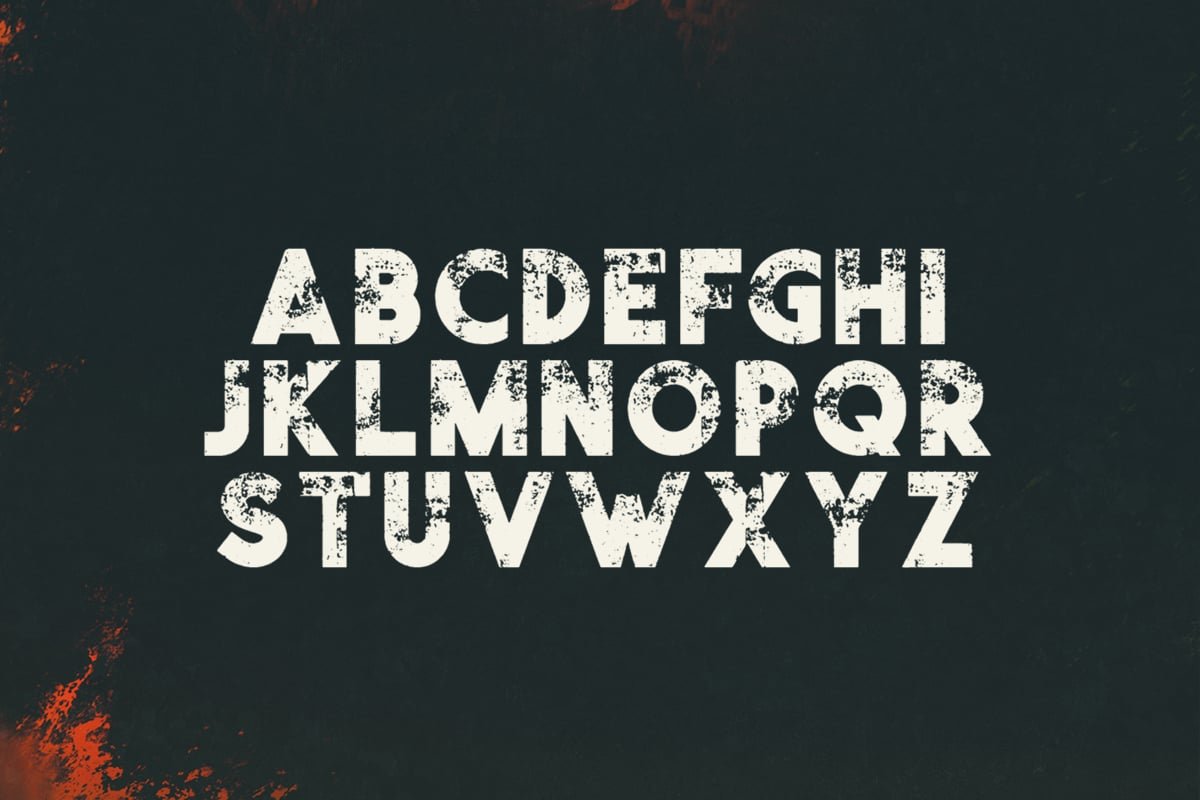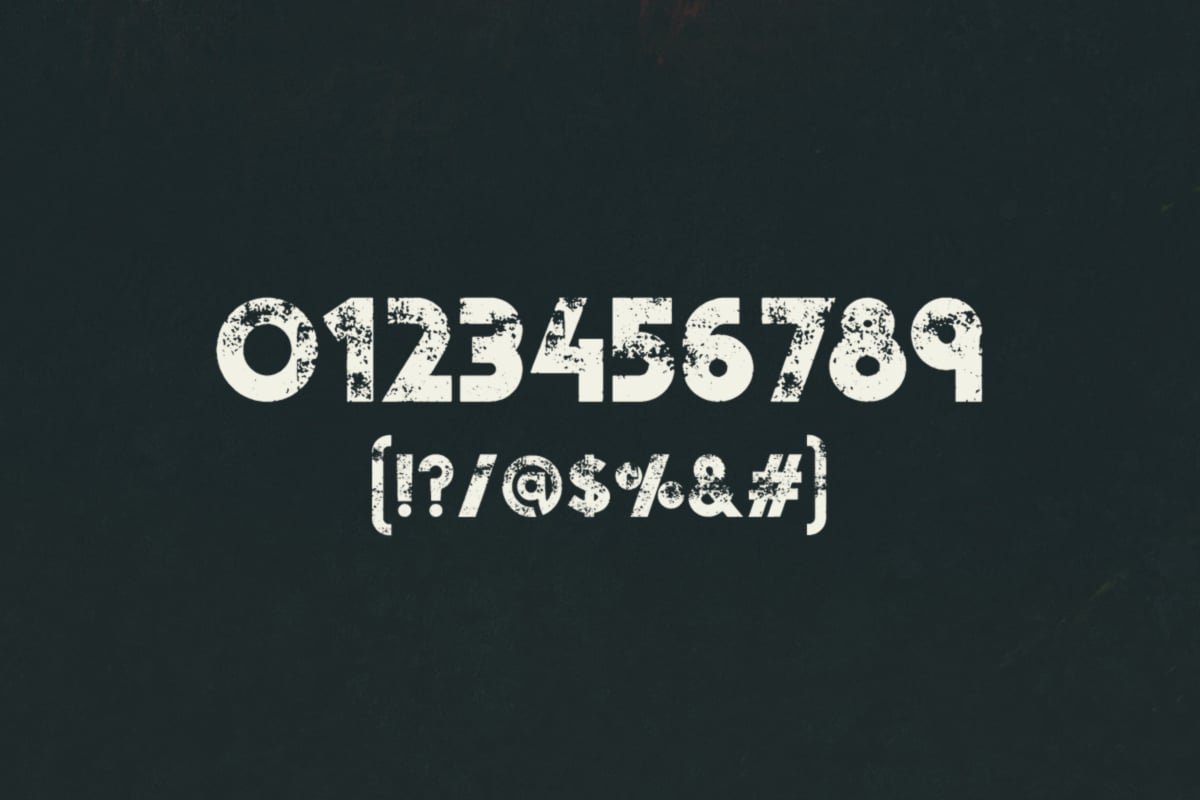
Visage Demolished Font
The demolished version of Visage is great for grungy titles. Includes uppercase multilingual letters, numbers and punctuation.